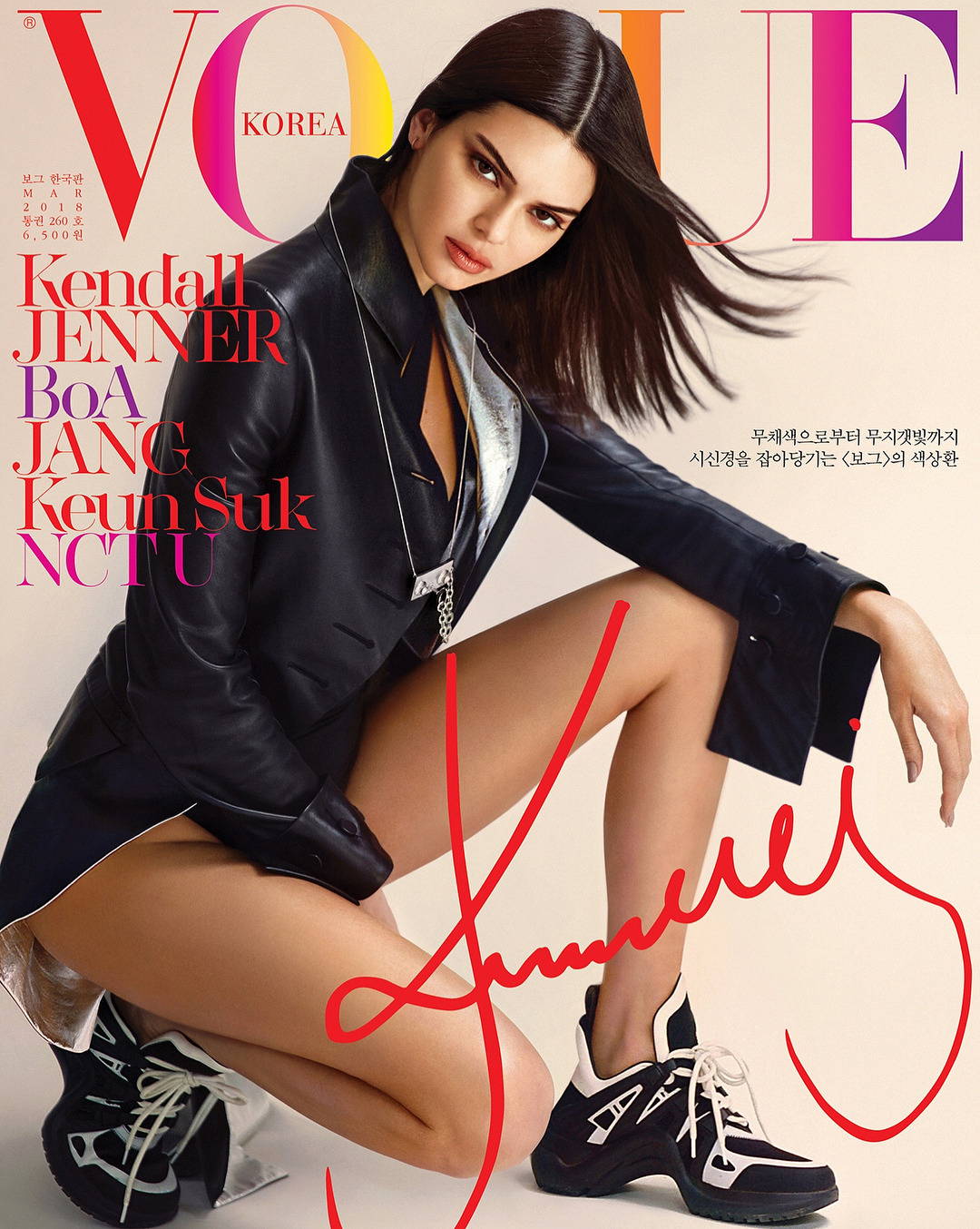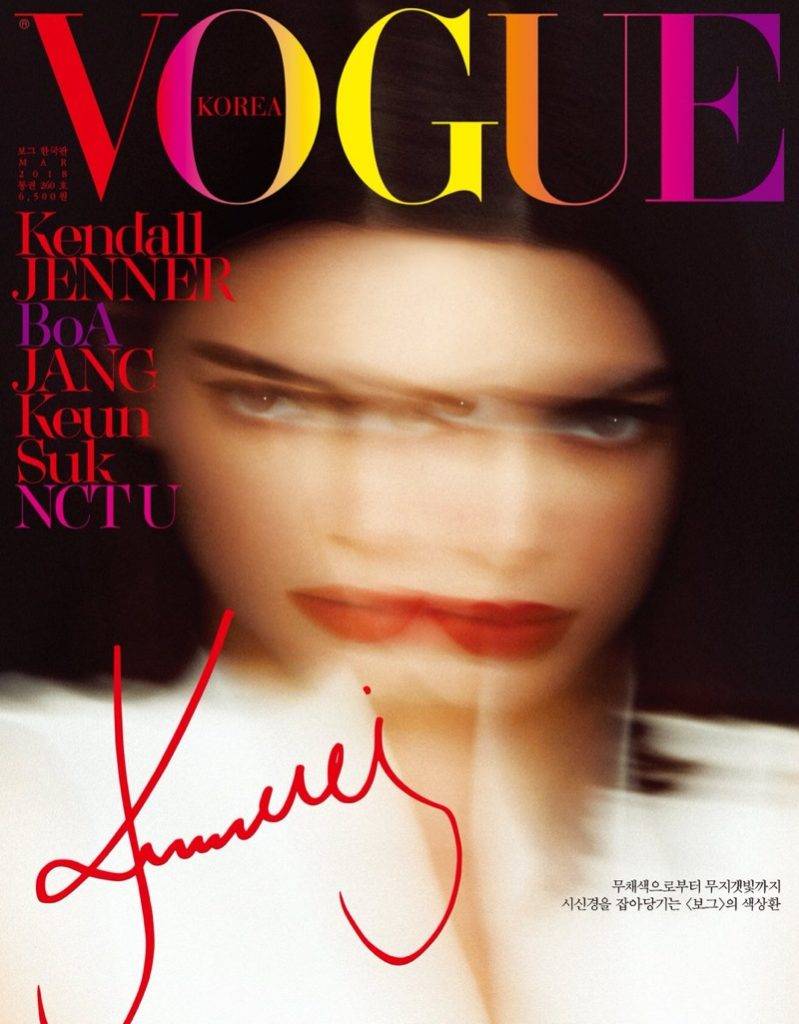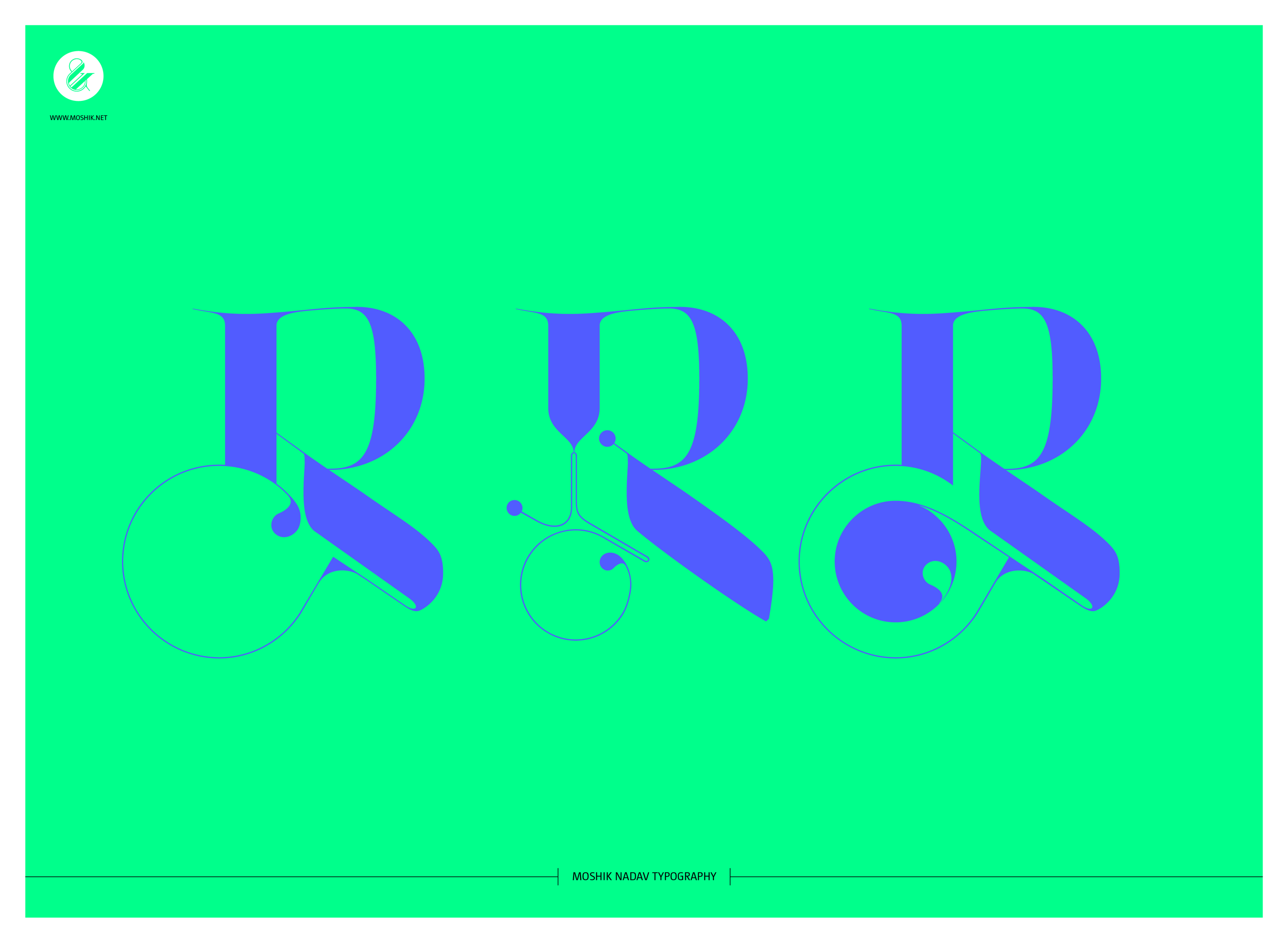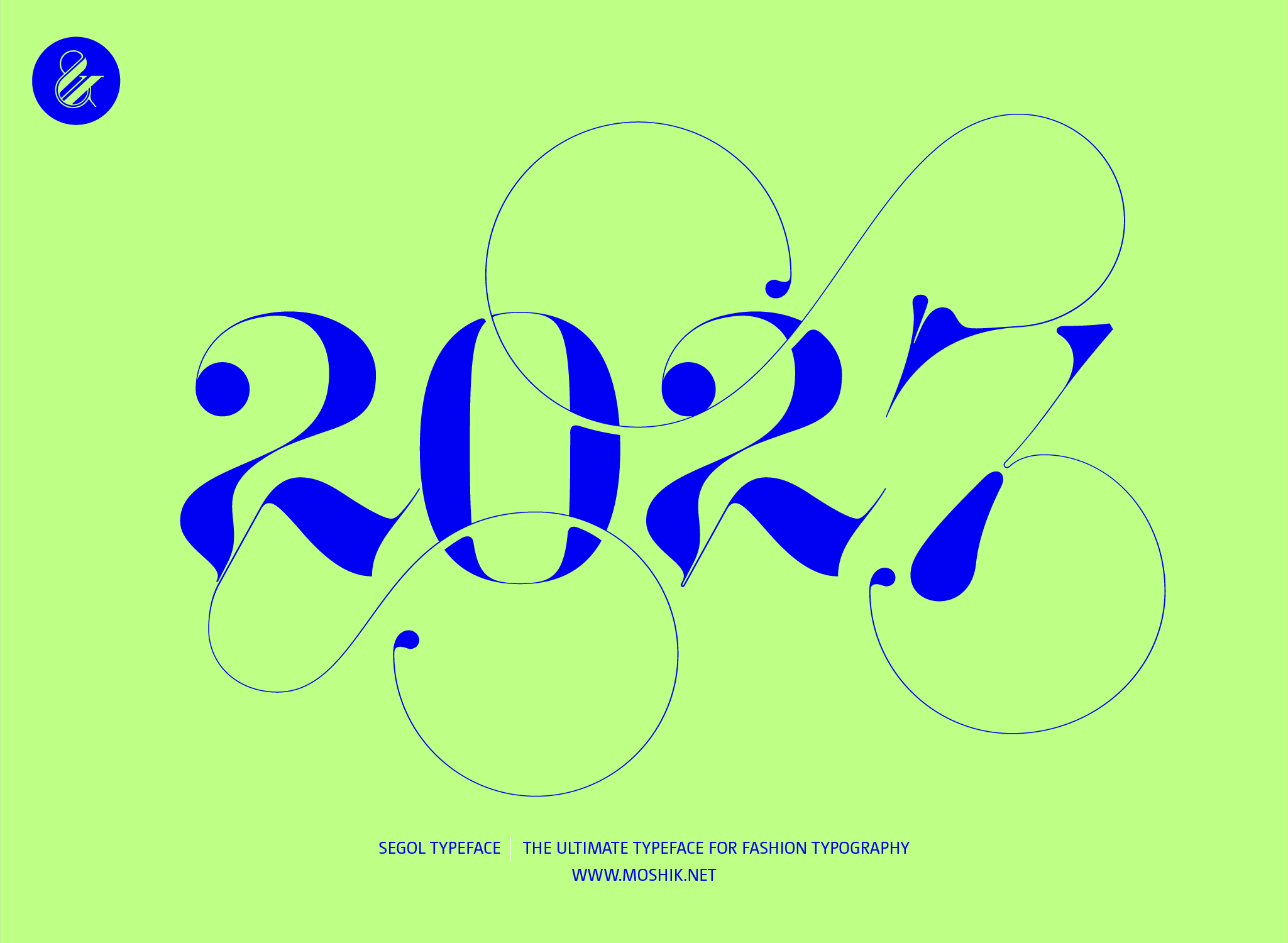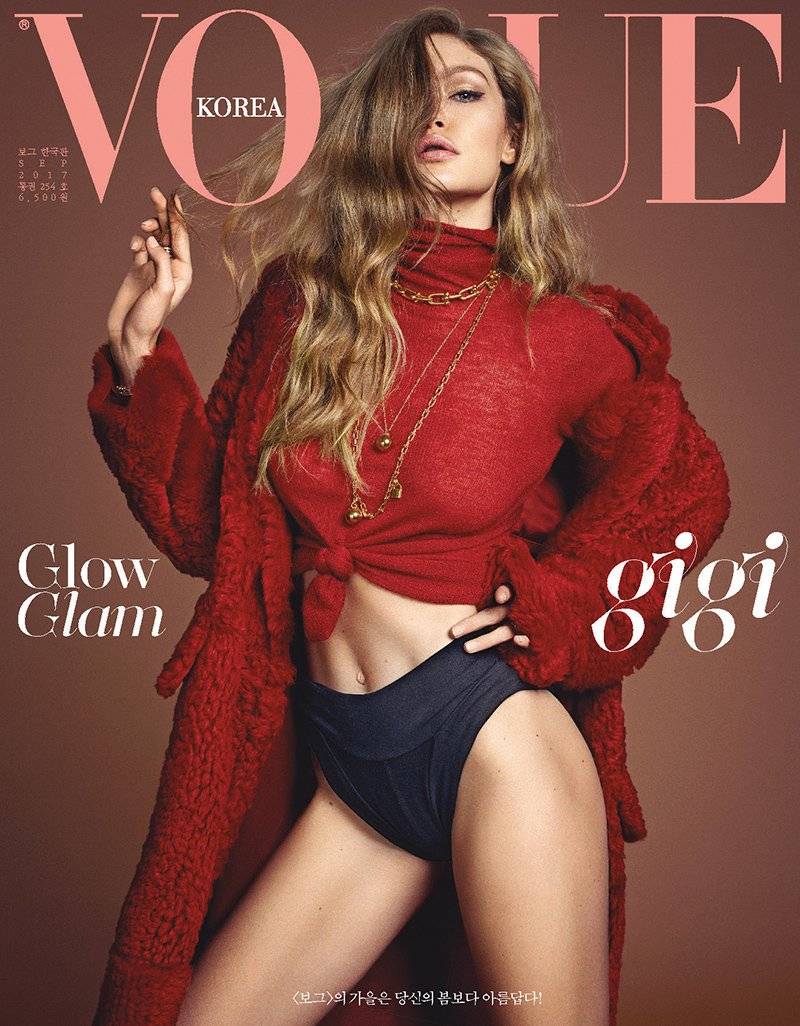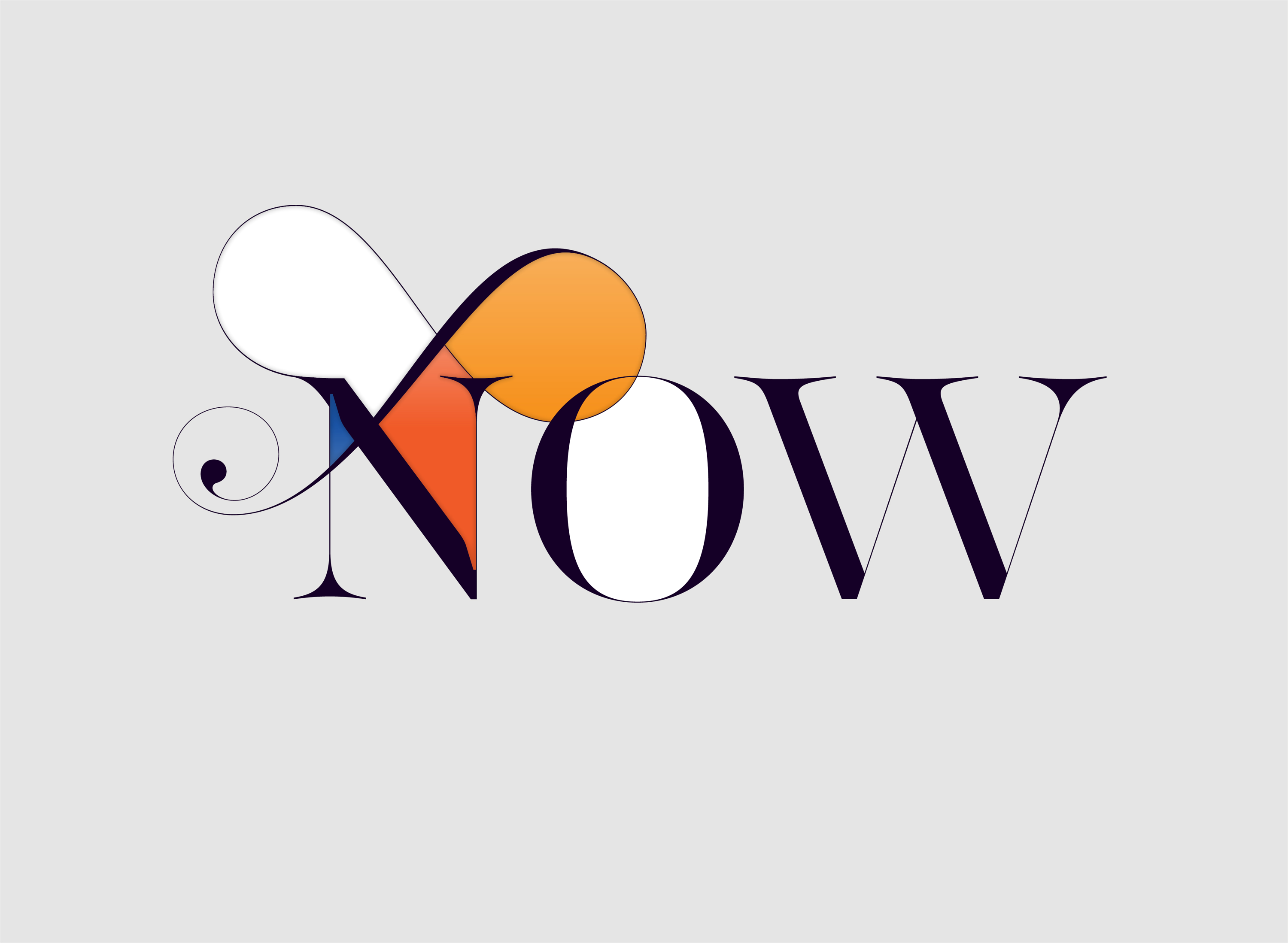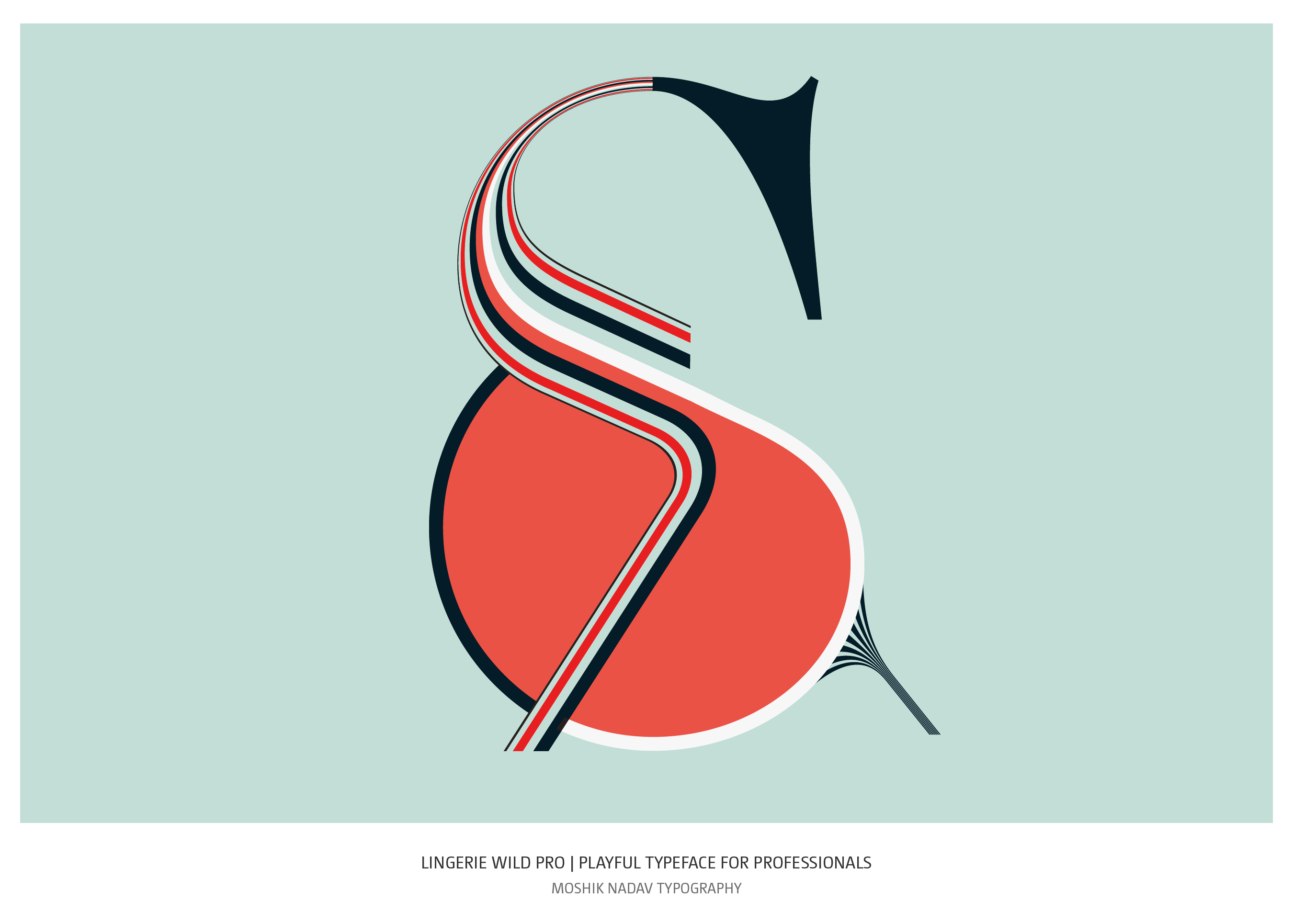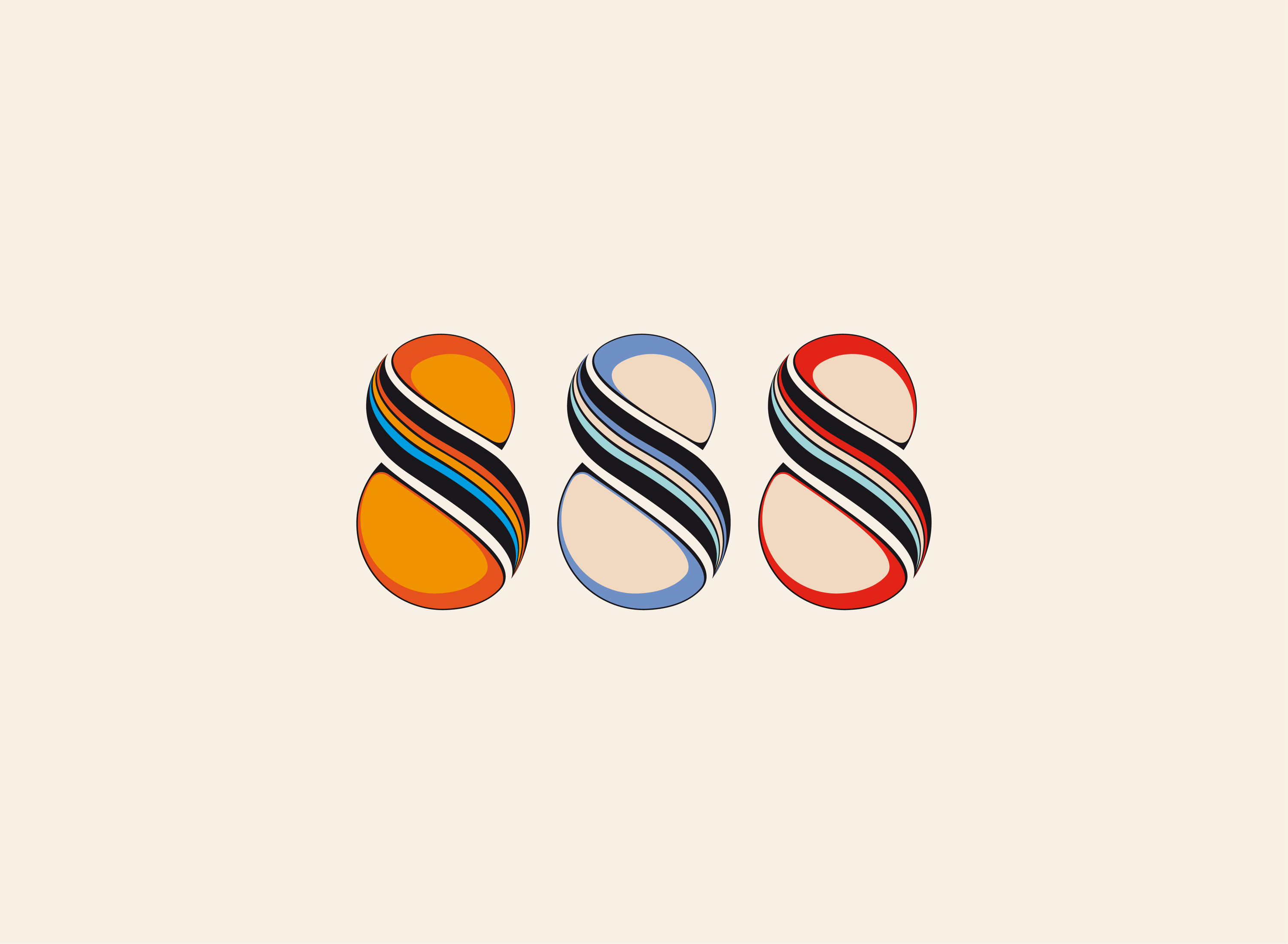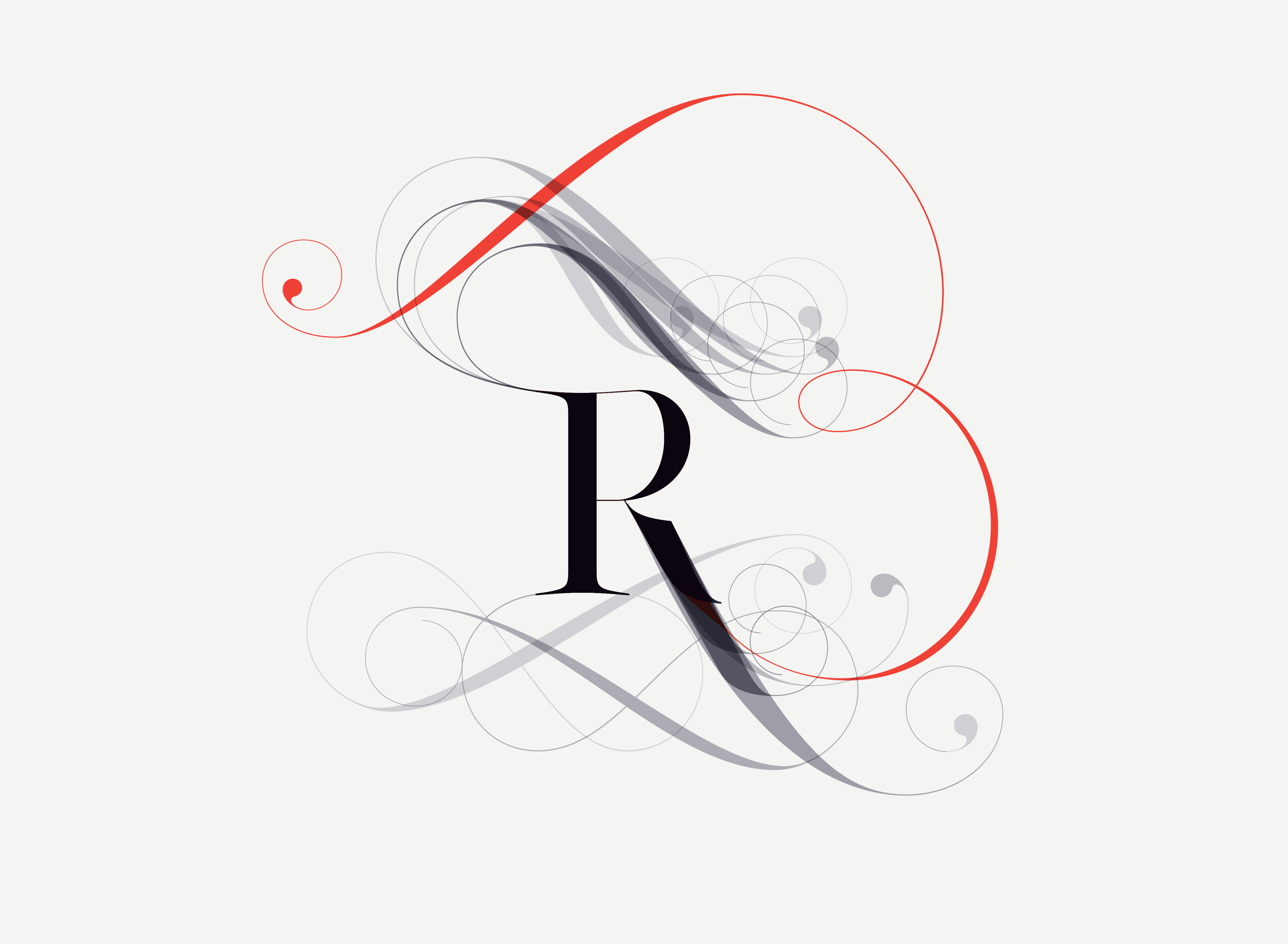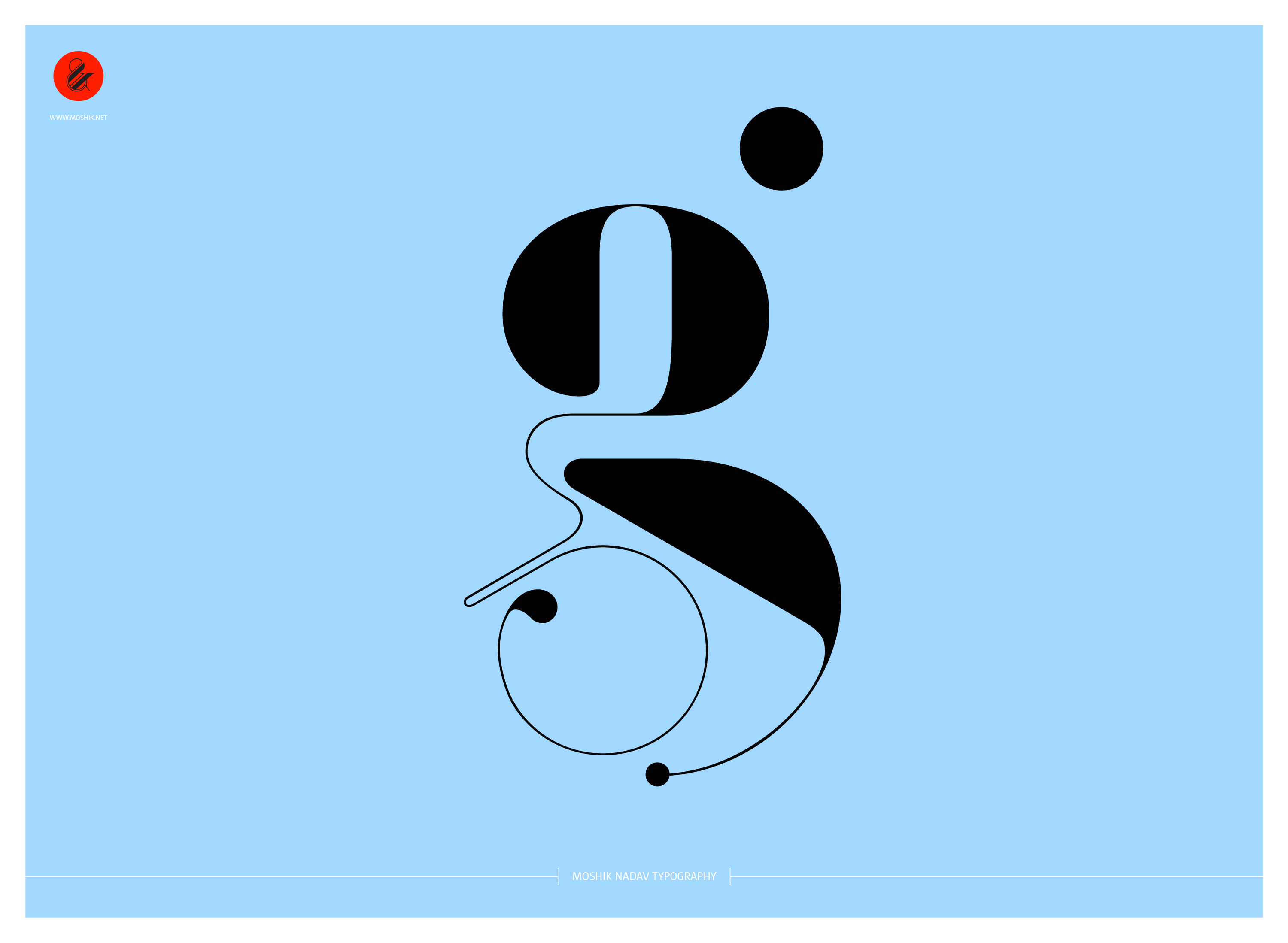
Top 6 Best Fonts for Logo Design and Fashion Branding for 2023
Picking the right font for your logo is challenging in any industry. But for fashion brands, it's especially difficult. There are so many different trends and sub-genres within a fashion that finding a font that represents your brand can feel impossible.
You might want a sexy font that allures customers or a more playful font to show off your fun side. A luxury fashion brand might want typography that looks high-end and sophisticated, while a startup streetwear brand might want something more unique and edgy.
To help you out, we've rounded up some of the best fonts for logo design and branding in the fashion industry. But first, what are some aspects and elements you need to consider when making your choice?
Things to Consider When Choosing a Font for Your Fashion Logo and Branding
There's a lot to take into account when searching fo
the perfect fashion typography for your brand.
Your Brand's Overall Aesthetic
For instance, what's your fashion brand's overall tone and aesthetic? Do you want something sleek and modern or classic and timeless? Remember, you aren't merely choosing a font; you're putting down the cornerstone of your entire brand identity.
Your font should reflect your brand's values and what you want to communicate to your customers. So, thinking about the message you want to send before making your choice is essential.
Scalability and Legibility
You'll also need to consider things like scalability and legibility. A font might look great on your website or in a feature article in Vogue magazine, but if it's hard to read on smaller mediums, will it be effective?
When adding swashes, ligatures, and other calligraphic features, how do they impact legibility? Fashion is a fast-paced industry and the last thing you want customers to get frustrated trying to read your logo and simply moving on to the next thing.
How It Will Interact with Your Logo
In addition, think about how your font will interact with your logo. Is your logo text-only? Will it be used to frame an icon or motif? The way in which you choose to use your font in relation to the logo design and branding itself will also play a role in your decision.
If you're working with a professional fashion logo designer, they should be able to help you create a logo that works well with your chosen font.
Whether You Need Multiple Fonts
Of course, another aspect you need to mull over is whether you will opt for one or several fonts. While you can use a single font throughout all aspects of your branding, some fashion labels prefer to create a more dynamic look by incorporating multiple fonts.
Taking the latter approach is undoubtedly more complex since you need to be sure that the fonts you choose complement each other. It also requires more intricate planning to ensure that your overall branding remains cohesive.
The Foundry or Type Design Agency
You Source Your Font From
Next, you need to consider the foundry or type design agency from which you'll be sourcing your font. In the past, fashion labels would create their own fonts in-house to use as part of their branding. However, with the technological advances in recent years, it's now easier than ever to find high-quality fonts that fit your specific needs.
When choosing a type design agency, it's essential to consider their industry experience, design style, and whether they offer any customization options. If uniqueness is a key concern for you, then working with an agency that offers bespoke typeface designs might be the way to go.
Other Factors to Consider
- The personality of the font
- The overall look and feel of the font
- If the font works well in both digital and print applications
- Whether the font has multiple weights and styles
- The customizability of the font
- Whether the font has international market appeal
Best Fonts for Fashion Logo Design and Branding 2023
There's no doubt it, Segol Typeface is one of the hottest fashion fonts in 2023. This typeface's vivacious and gorgeous nature makes it perfect for fashion brands that want to convey a sense of fun and excitement.
While Segol Typeface is undeniably bold, it's also incredibly modern and chic. This makes it versatile enough to be used in various branding applications, from website design to fashion editorials.
As they say in the fashion industry: sex sells! And there's undoubtedly no sexier font than Lingerie XO. This typeface oozes sensuality and glamor, making it perfect for fashion brands that want to exude confidence and luxury.
While Lingerie XO is certainly one of the more daring fonts on our list, it's also incredibly sophisticated and elegant. While each curve and line is sumptuous and seductive, they're also perfectly balanced and proportioned. Lingerie XO is an excellent choice for fashion labels that want to tread the line between sexy and stylish.
Moshik Nadav Typography is New York's leading foundry for all things fashion. With an impressive client list that includes Vogue, ELLE, and GQ, it's no wonder that Moshik Nadav's fonts are some of the most coveted in the industry.